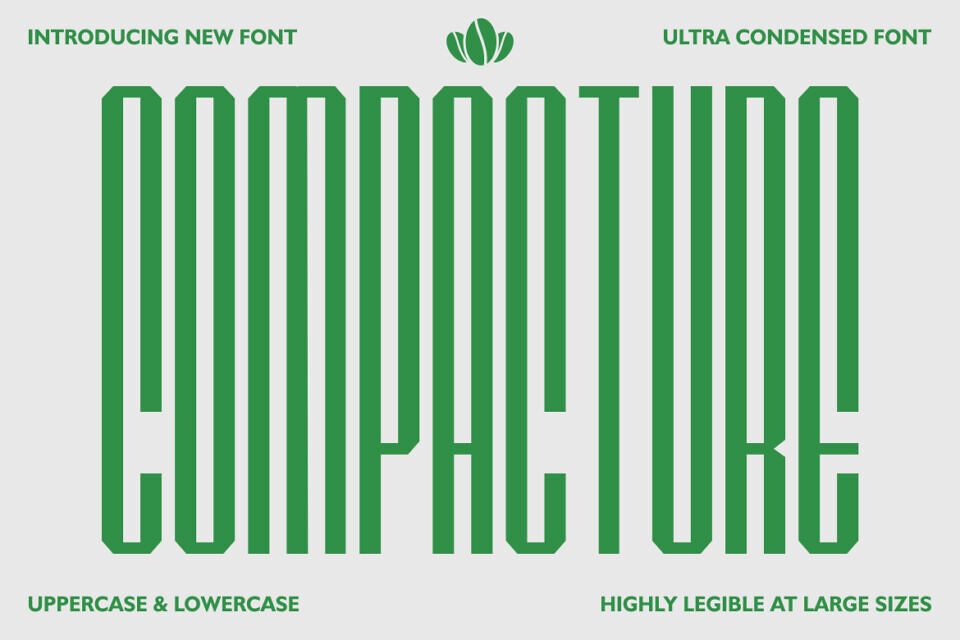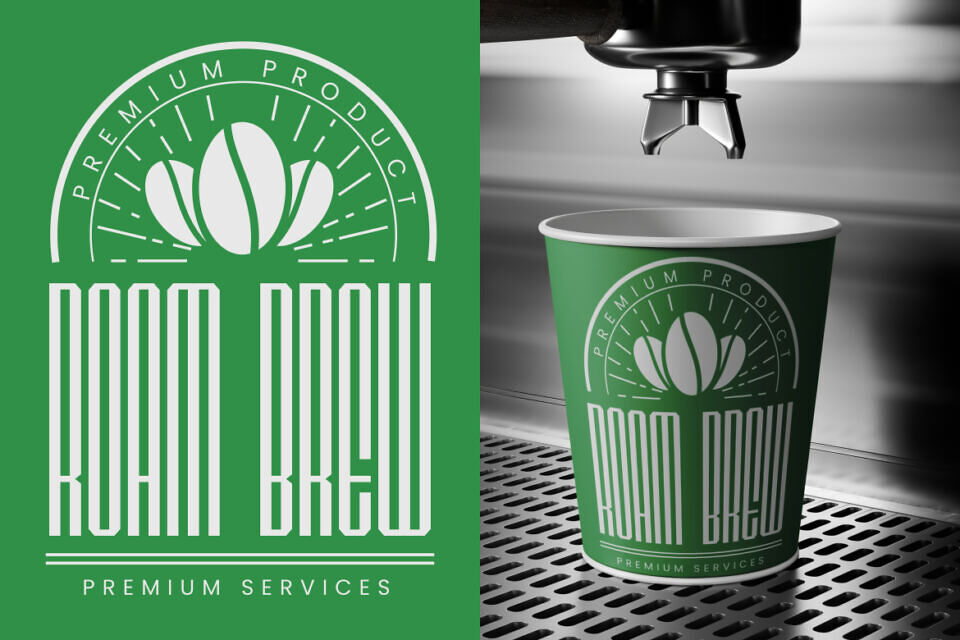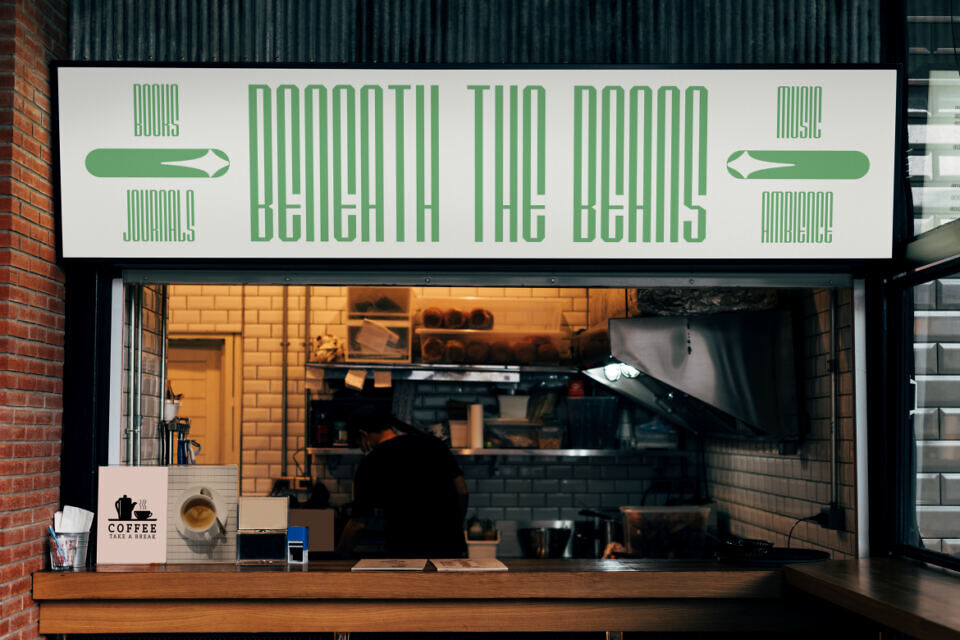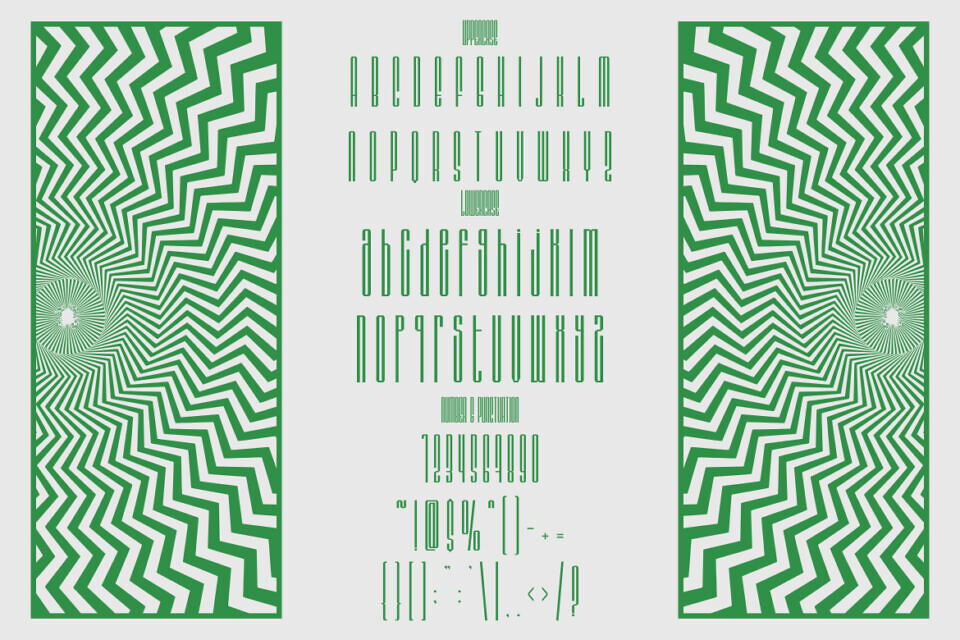
Compacture Font
Compacture Condensed Font is a bold ultra-condensed typeface designed to command attention with minimal space. Each letterform is tall, narrow, and geometric, giving an elongated structure that maximizes vertical presence while maintaining clear readability. The sharp edges and clean cuts create a professional and modern aesthetic that feels both strong and refined.
This condensed design is perfect for logos, posters, editorial layouts, packaging, and branding projects where impact is essential. Its architectural proportions make it stand out in large formats, from signage to book covers, while still offering legibility in smaller applications.